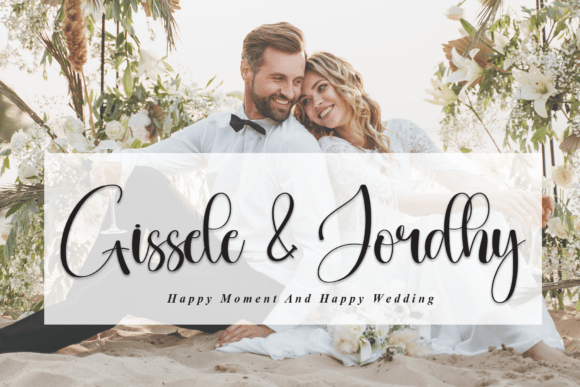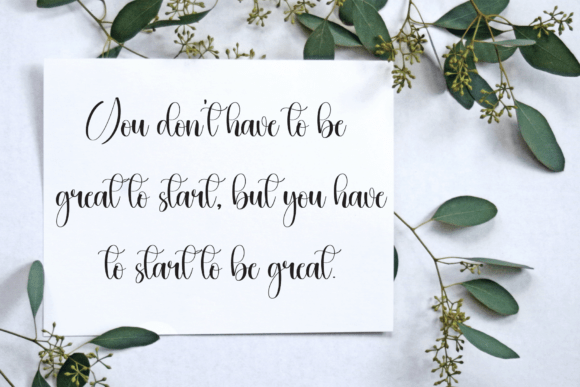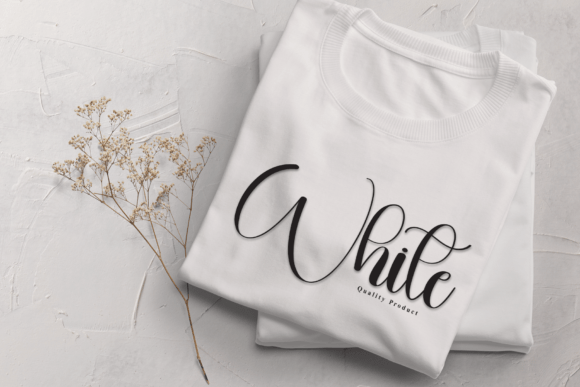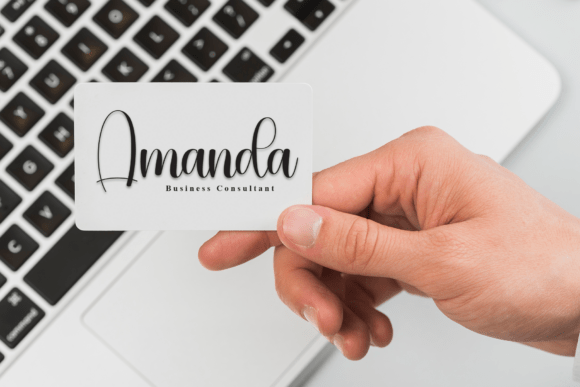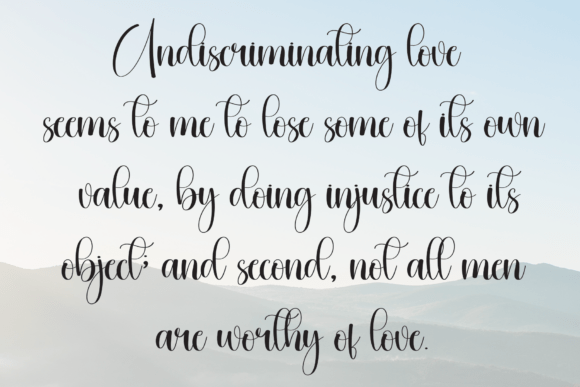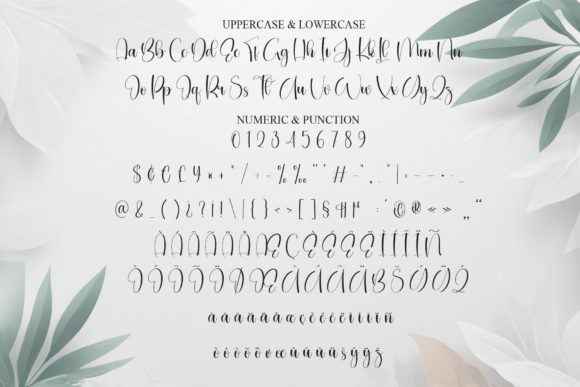
Introduction to Outstanding Font
Have you ever stumbled upon a font that just sparks your creativity? For me, it was the moment I laid eyes on the Outstanding Font. Its elegant, handwritten script design had me hooked, and I knew I had to share it with fellow designers. This font is more than just a pretty face – it’s a design resource that can elevate any project and add a touch of sophistication.
With its fluid strokes and natural flow, the Outstanding Font brings a sense of warmth and creativity to any design. Whether you’re working on a branding project, creating social media graphics, or designing invitations, this font is sure to impress. Plus, its high-quality design makes it perfect for printing or using on a transparent background.
Key Features of Outstanding Font
- Supports a wide range of languages, making it a versatile choice for designers and developers working on international projects.
- Includes a comprehensive character set, including uppercase and lowercase letters, numbers, and special characters.
- Designed with a modern aesthetic, making it an ideal choice for contemporary creative projects that require a unique and stylish look.
- High-resolution design (300 DPI) ensures that the font remains crisp and clear when used in various applications, from print to digital media.
Honest Review: Outstanding Font
I recently stumbled upon the Outstanding Font and I must say, it’s been a game-changer for my design projects. As a designer, I’m always on the lookout for high-quality fonts that can elevate my creative work. The Outstanding Font does just that, with its sleek and modern aesthetic.
- What works well: ✨ The font is incredibly versatile and can be used for a variety of design projects, from branding to editorial work. Its transparent background makes it easy to pair with any color or design element.
- What works well: ✨ The font is highly customizable, allowing designers to tweak the style and size to fit their specific design needs.
However, I did encounter a few limitations with the Outstanding Font. ⚠️ The font can be a bit difficult to read at small sizes, and the lack of bold weight options can make it challenging to create visually appealing headings.
Overall, I’m really impressed with the Outstanding Font and would highly recommend it to designers looking for a high-quality, free design resource. Its versatility, customizability, and modern aesthetic make it a valuable addition to any design project.
Tips for Getting the Most Out of Outstanding Font
To get the most out of Outstanding Font, use it in conjunction with a transparent background to create a modern and sleek design. Experiment with different font sizes and colors to add visual interest to your project.
Outstanding Font is perfect for creative projects such as social media graphics, business cards, and presentations. Its high-quality design and transparent background make it an ideal choice for designers looking for a free and versatile font.